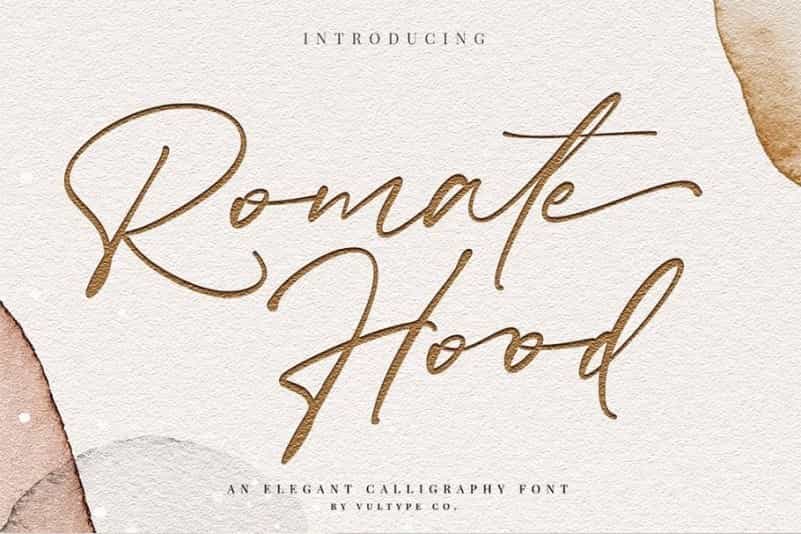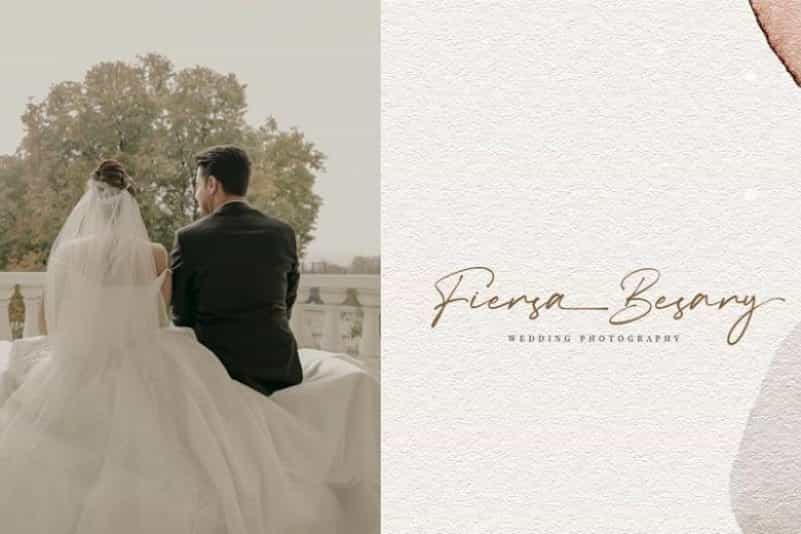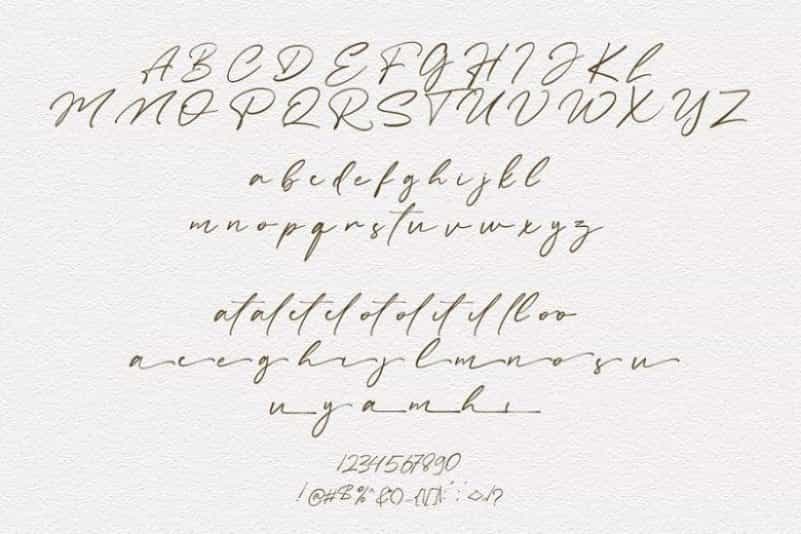
Romate Hood Font has a simple design of a handwritten script that is modern and chic. This font gives elegance to numerous designs of titles or text. This elegant font is suitable for using in the magazine headlines, social networks, business materials, wedding invitations, cards and other purposes.